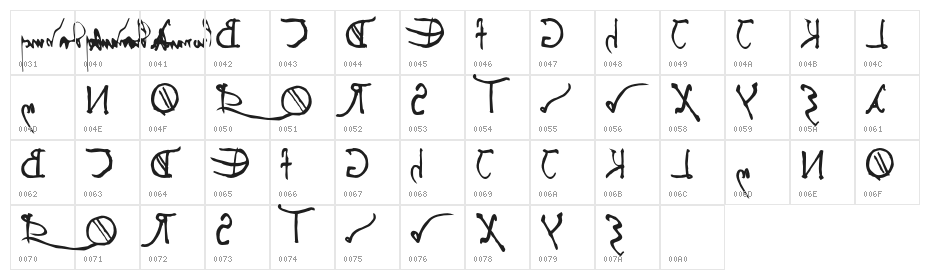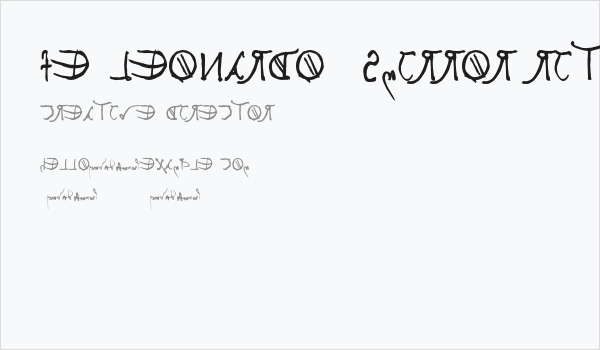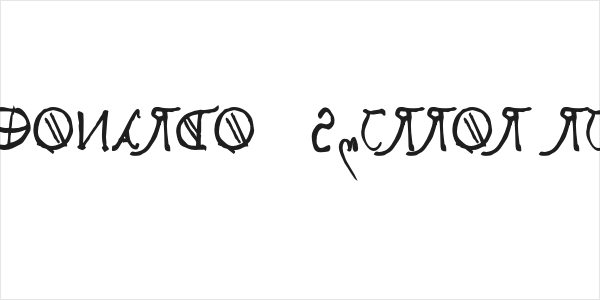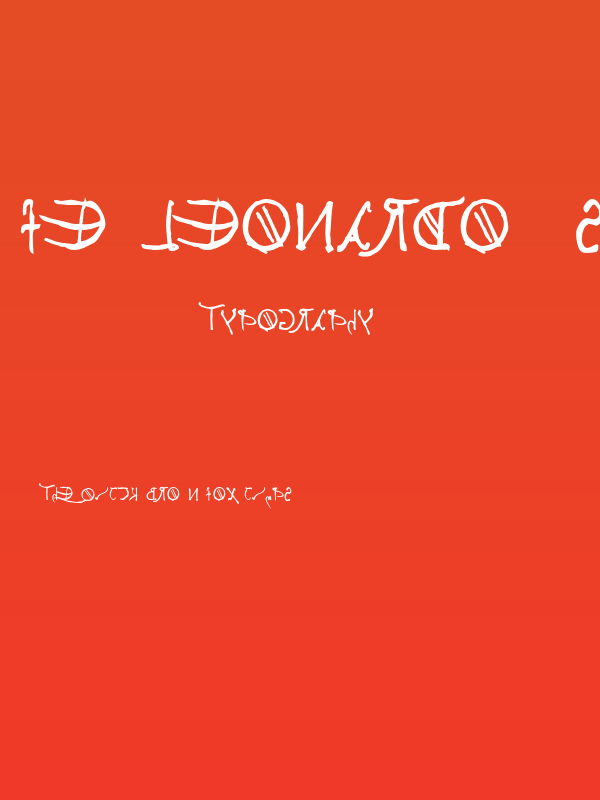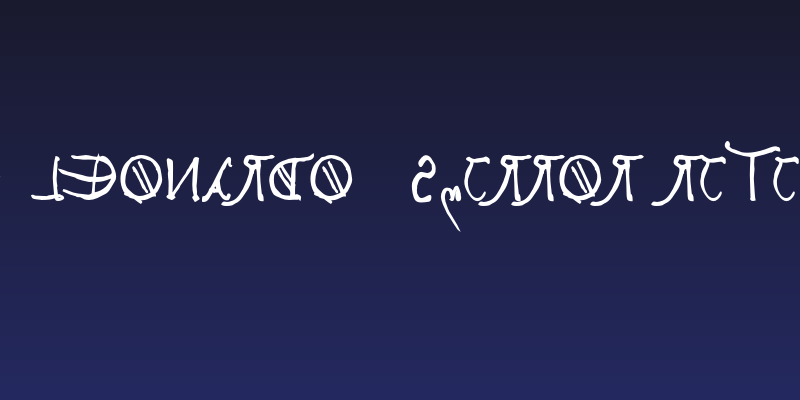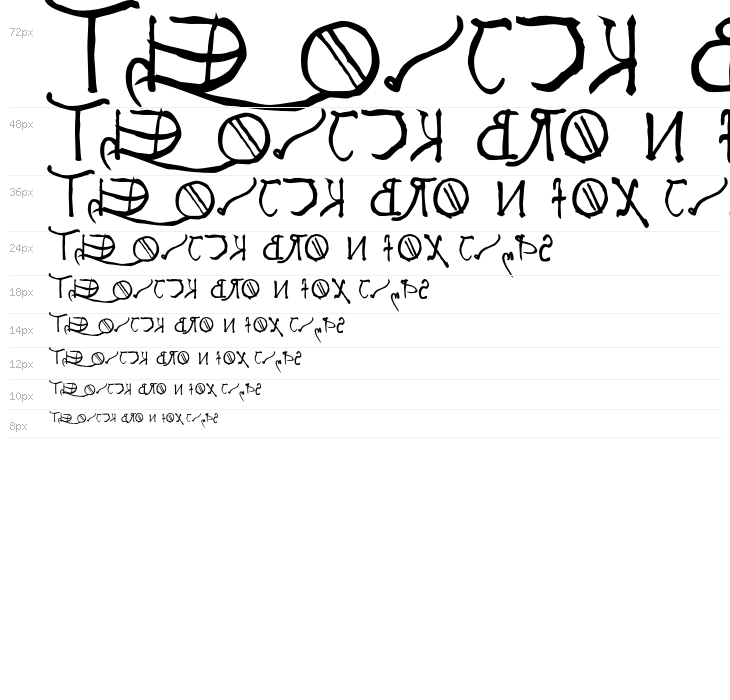
FE-Leonardo'smirrorwriting Font
FE-Leonardo'smirrorwriting Description
This font is a unique and artistic representation of mirror writing, reminiscent of Leonardo da Vinci's famous technique. The characters are elegantly curved and appear as if they are written in reverse, creating a mysterious and intriguing visual effect. The strokes are fluid and organic, with a hand-drawn quality that adds to its charm. This style captures the essence of historical scripts, offering a vintage and classical feel. The letters are distinct and maintain a consistent style throughout, making it suitable for creative and artistic projects.
| Use Case | Artistic projects, creative designs, historical recreations. |
| Proposed Projects | Ideal for artistic projects, historical recreations, and creative designs that aim to evoke a sense of mystery and intrigue. |